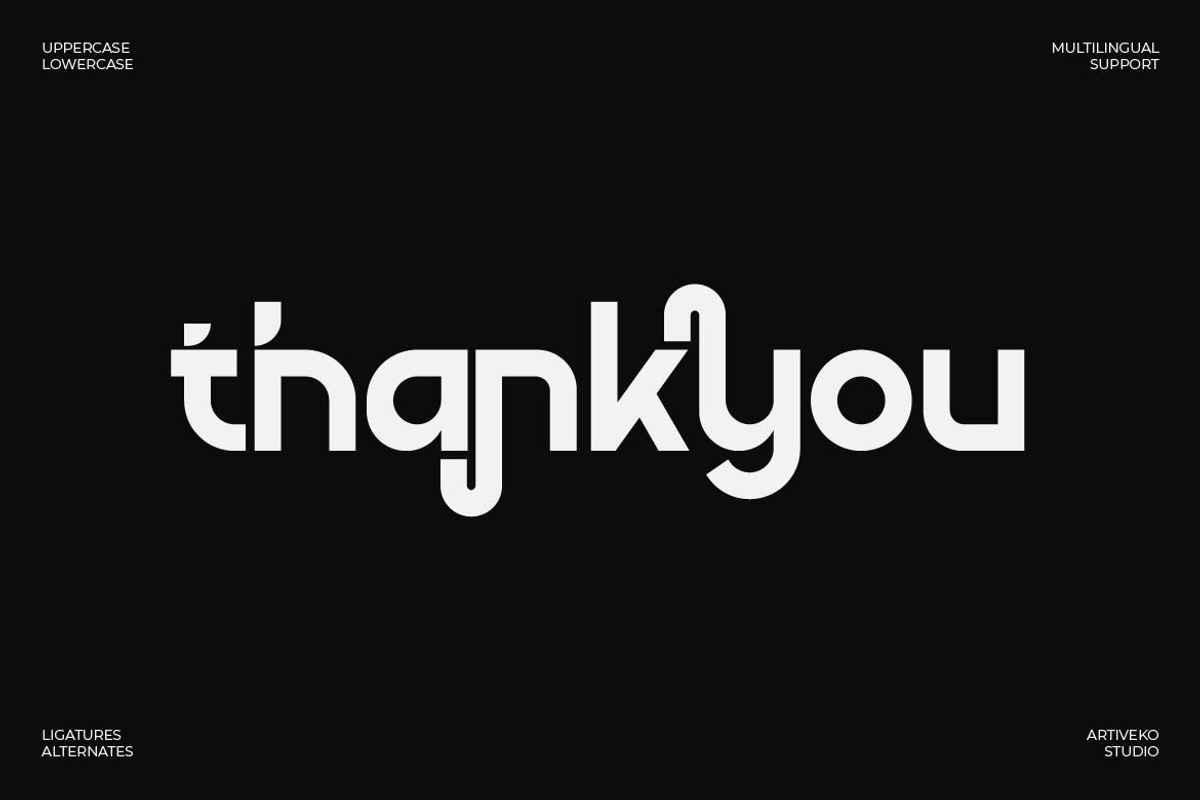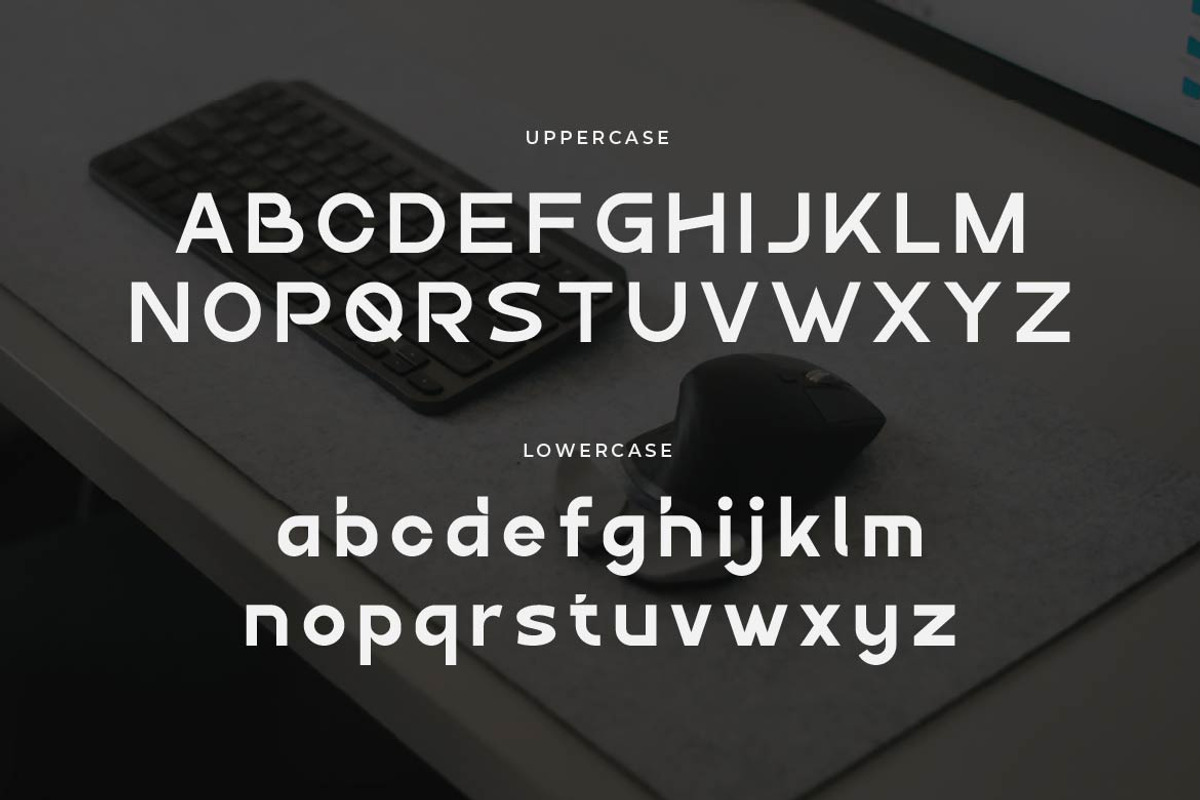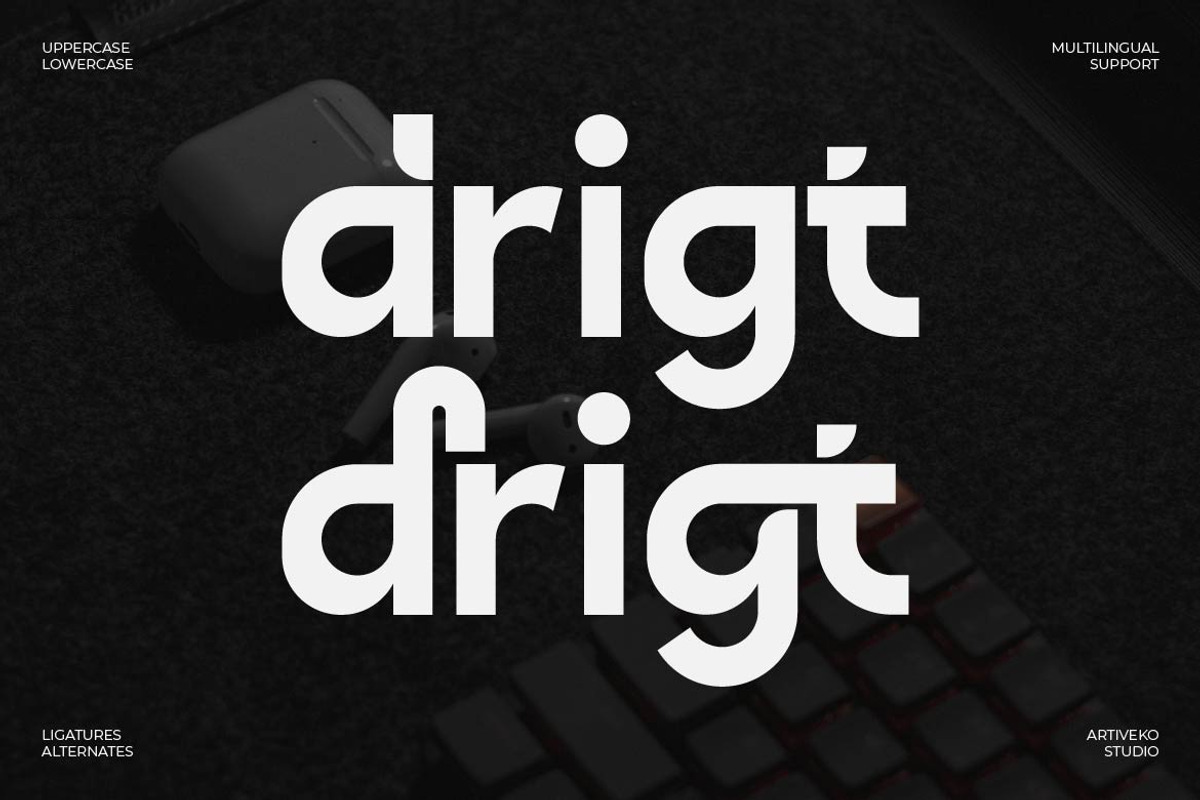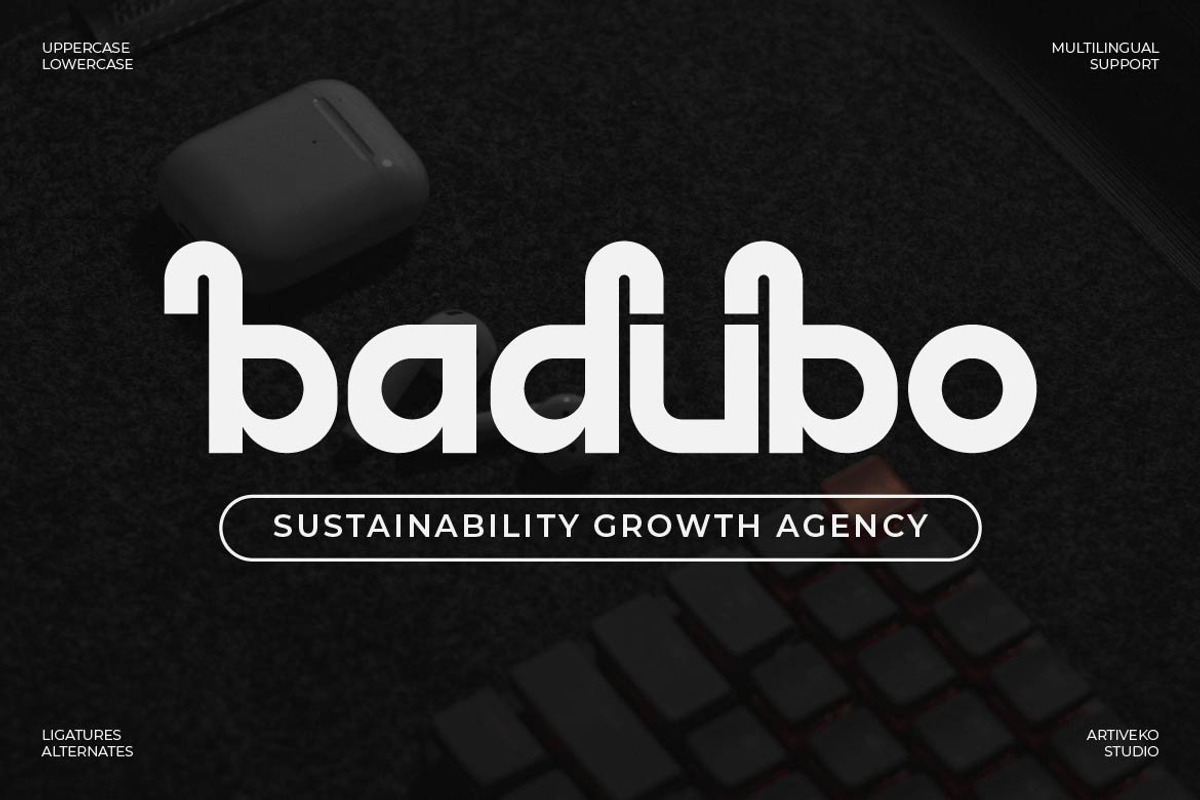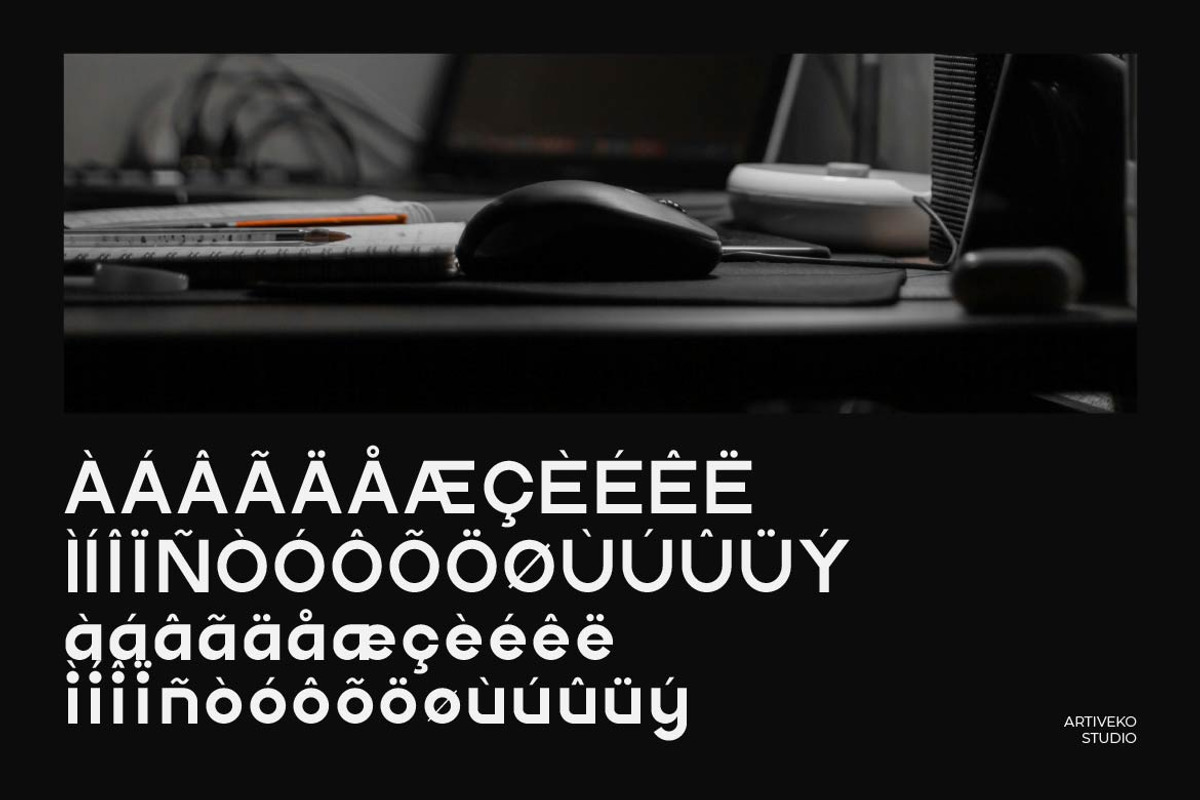
Drigt – Modern Creative Sans Serif
Drigt is a modern creative sans serif typeface designed to bring a fresh and confident look to contemporary design. With clean structure, balanced proportions, and subtle distinctive details, Drigt delivers a perfect mix of professionalism and creative expression.